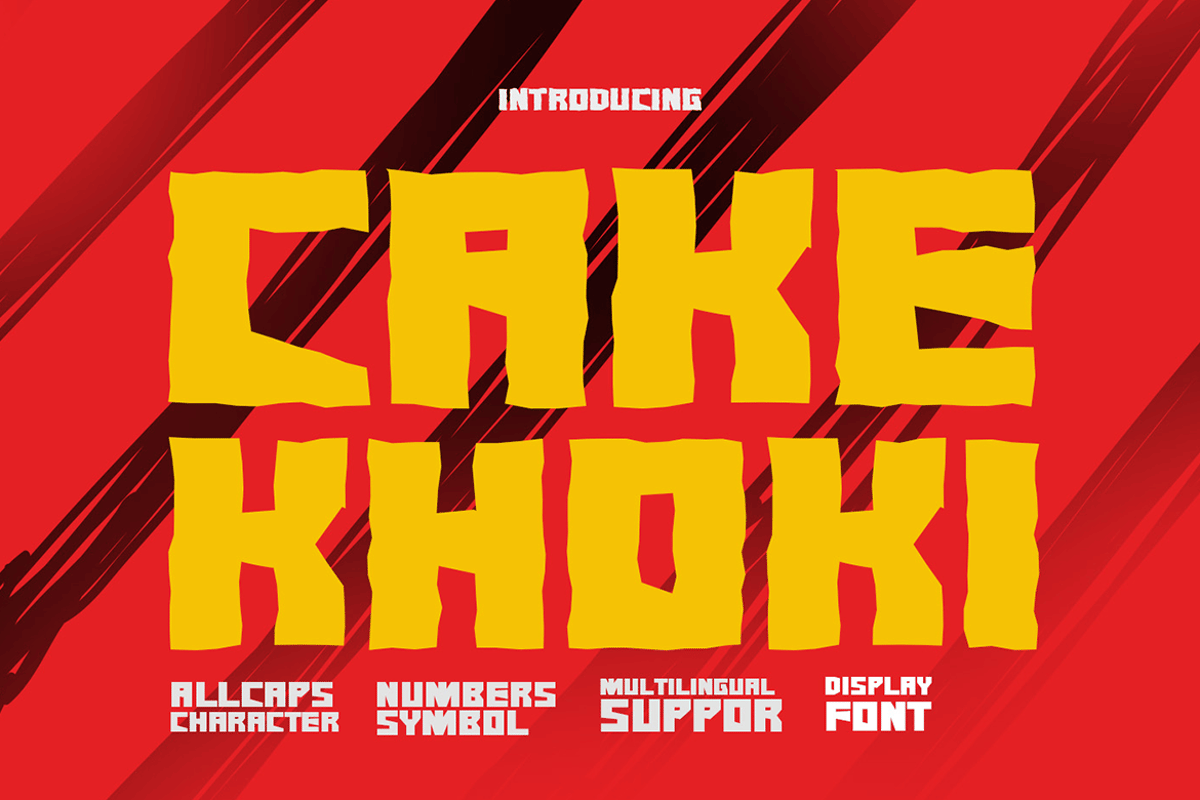
Cake Khoki Font
Make your designs pop with Cake Khoki - a bold handcrafted display font that delivers rough edges and playful energy. This impactful typeface is tailor-made for projects that demand strong personality and visual punch. Whether you're crafting eye-catching headlines, designing memorable posters, creating standout packaging, or building distinctive brand identities, Cake Khoki brings the bold character your creative work needs. Complete package includes: All caps character set Numbers and symbols ...